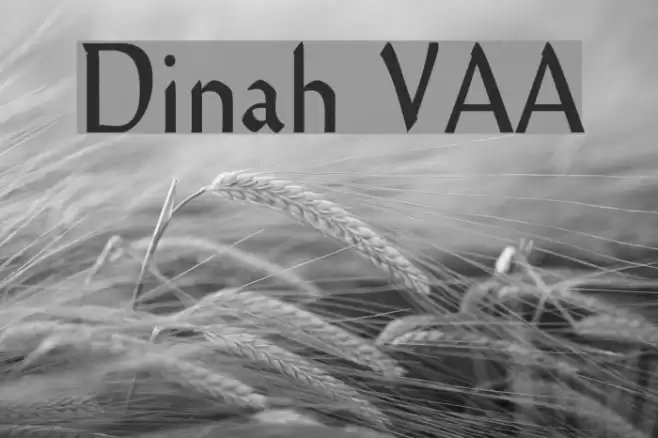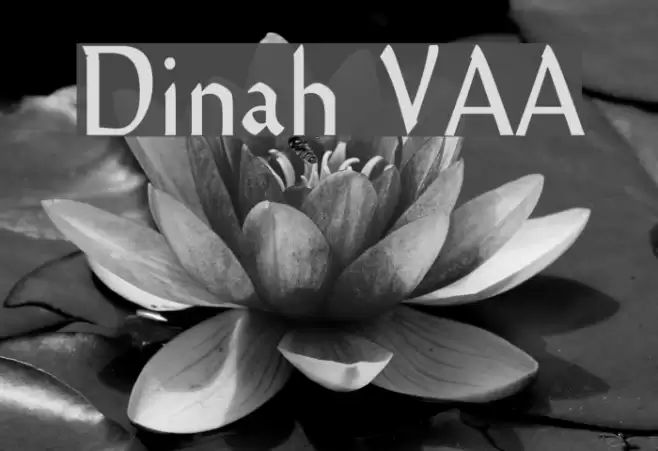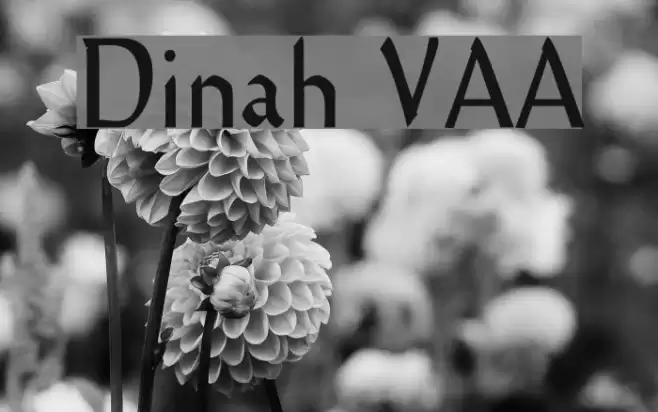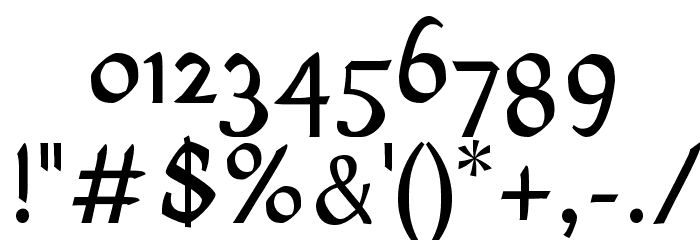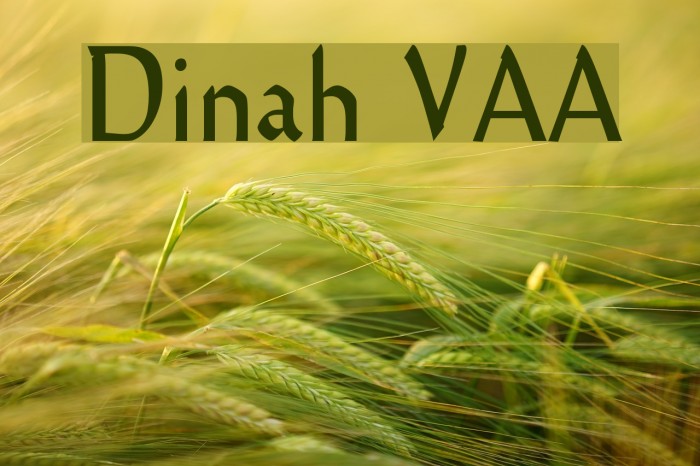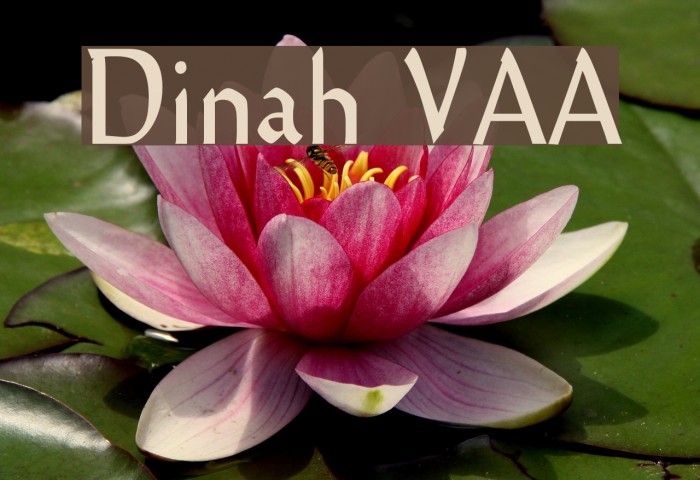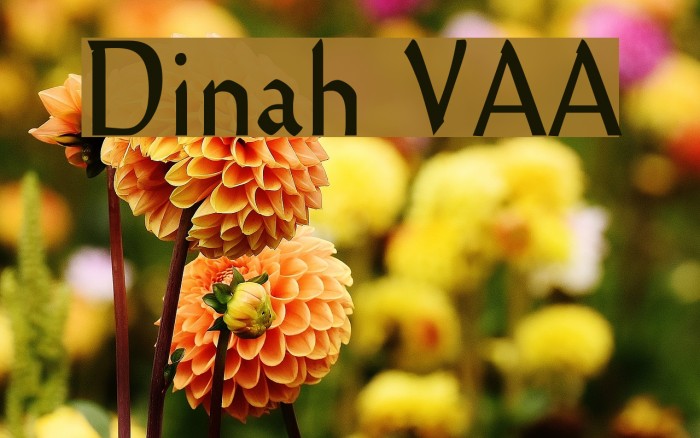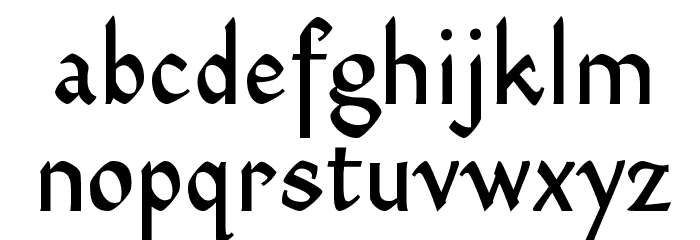
Dinah VAA Font
Dinah VAA Description
This font features a unique blend of classic and modern elements, characterized by its sharp serifs and slightly condensed letterforms. The uppercase letters exhibit a strong presence with distinct angular cuts, while the lowercase letters maintain a more fluid and organic shape. The numerals are bold and easily legible, making them suitable for various applications. Special characters are designed with a consistent style, ensuring harmony across all glyphs. The overall appearance is both elegant and assertive, making it ideal for projects that require a touch of sophistication.
A sophisticated serif font with sharp serifs and a blend of classic and modern elements from Uncategorized fonts.
- Proposed Projects: Ideal for branding, editorial design, book covers, and luxury product packaging.
- Overall Style: Classic
- Use Case: Headlines, Logos, Editorial design